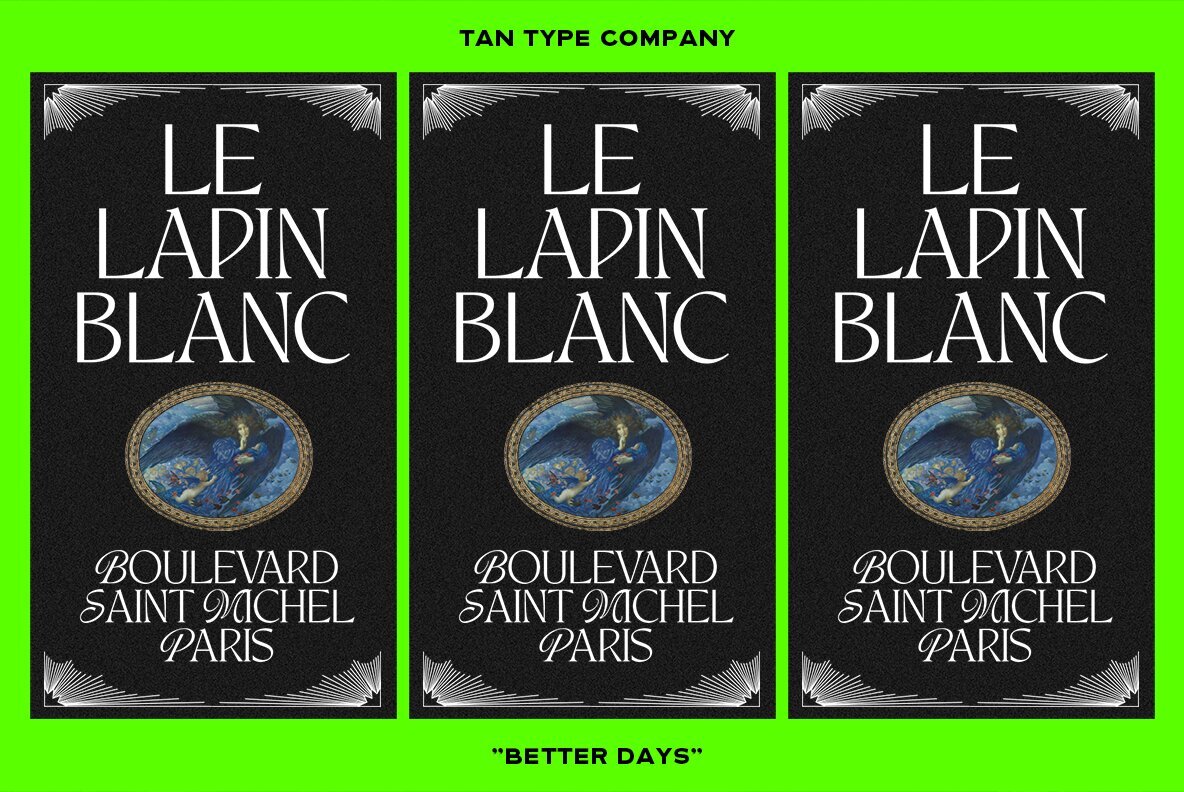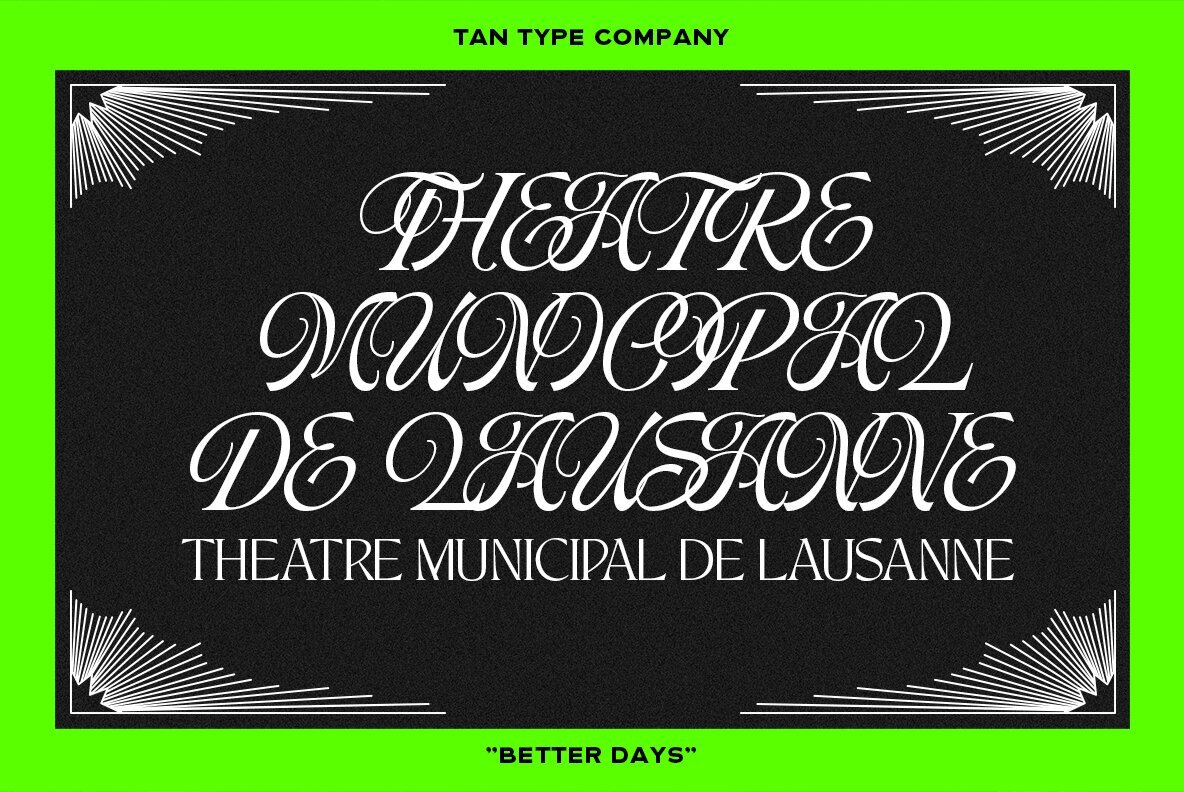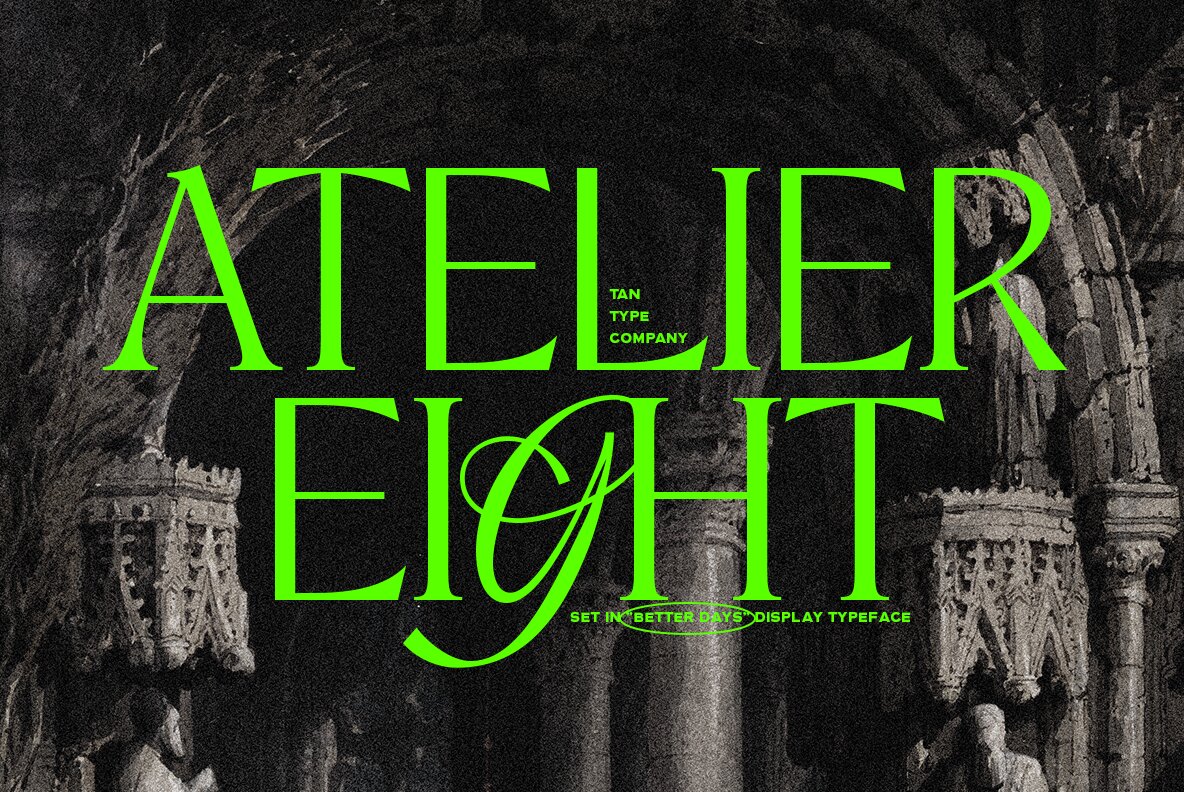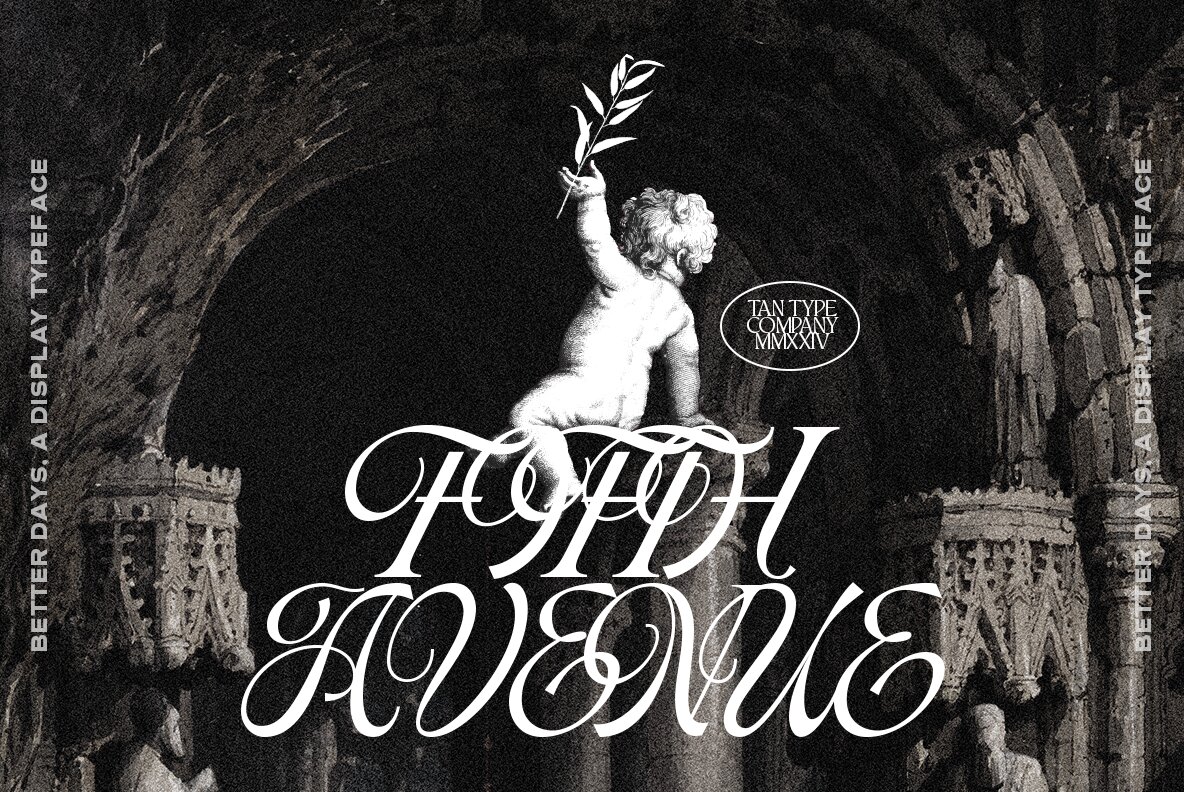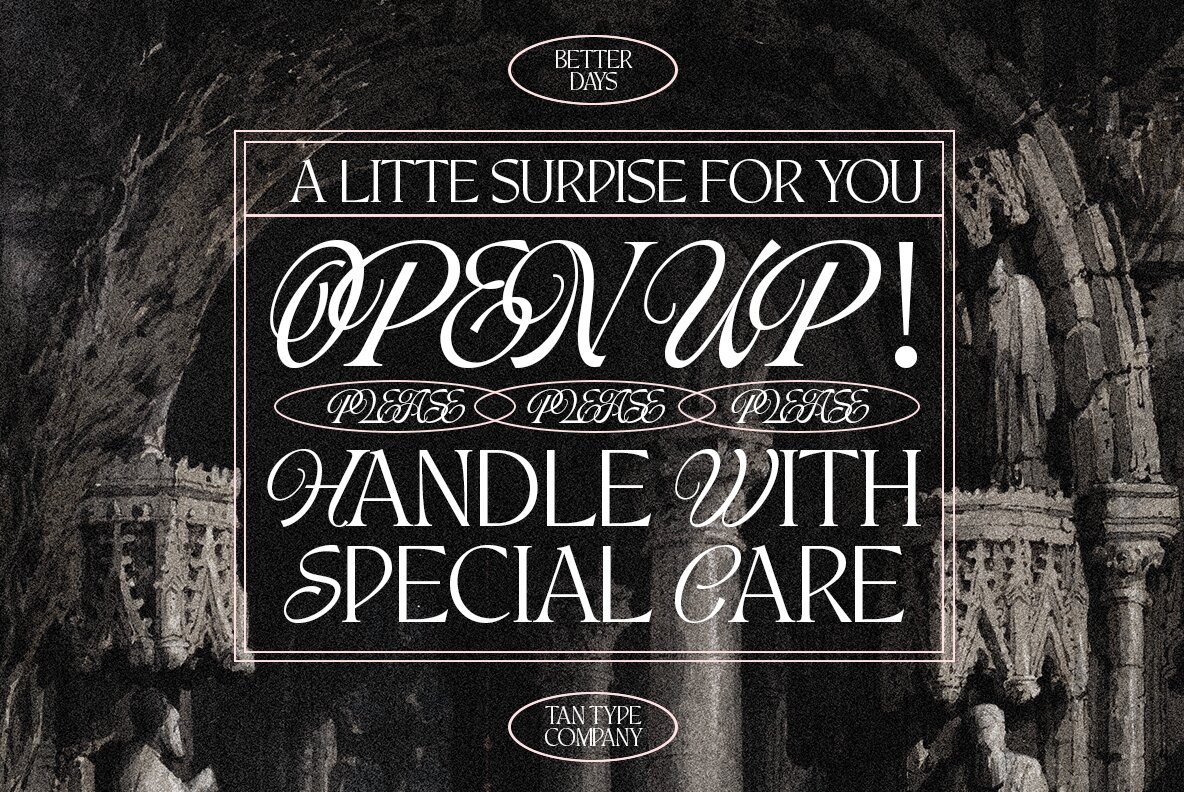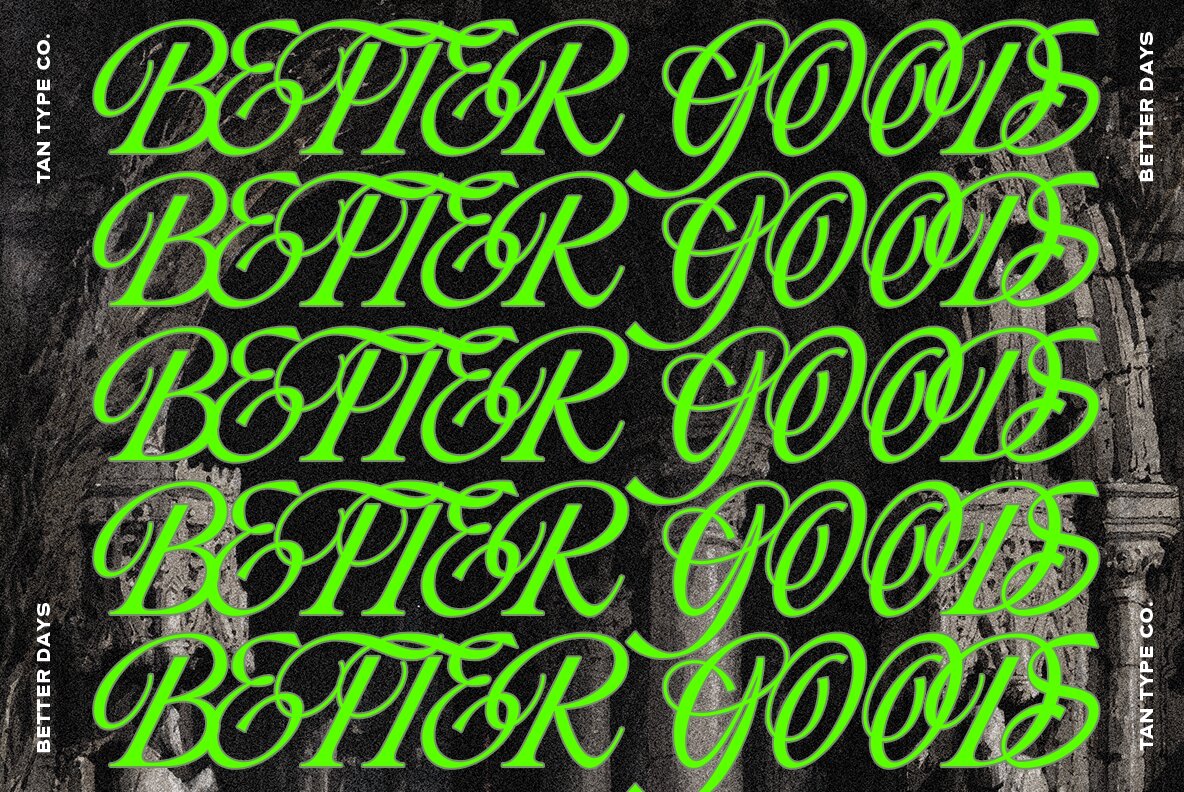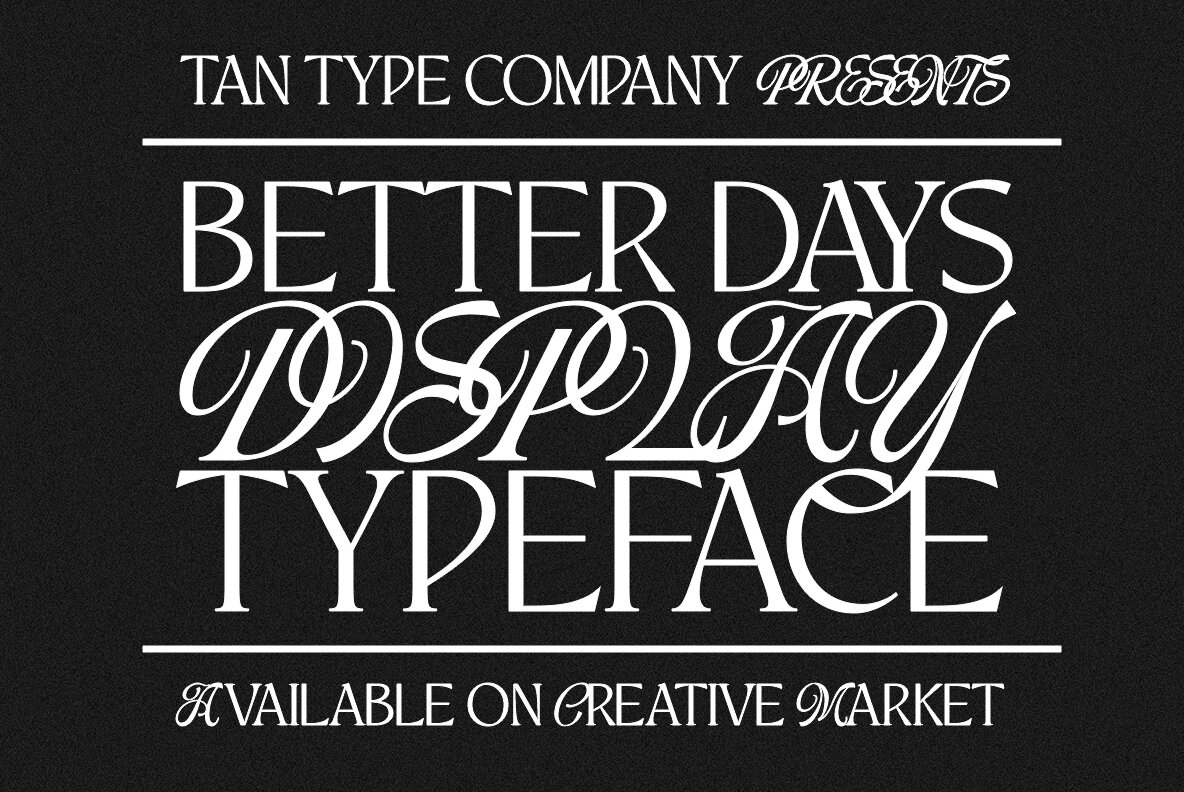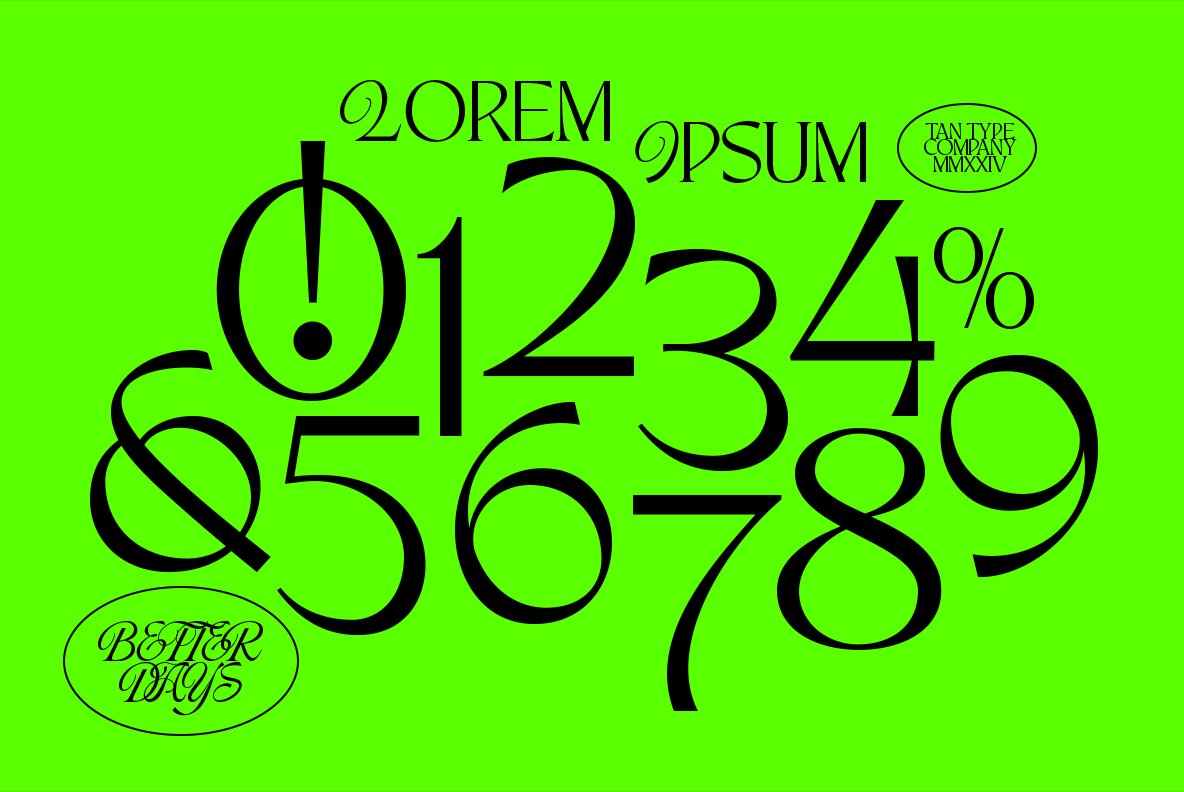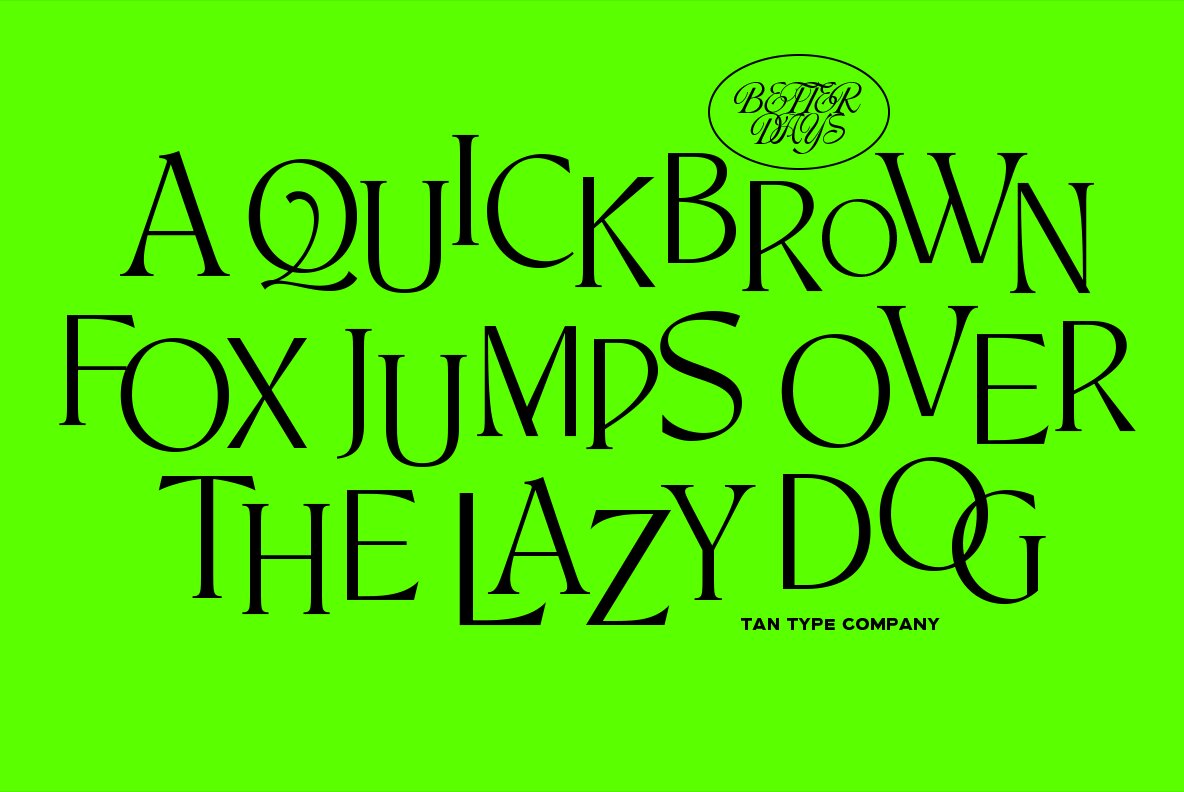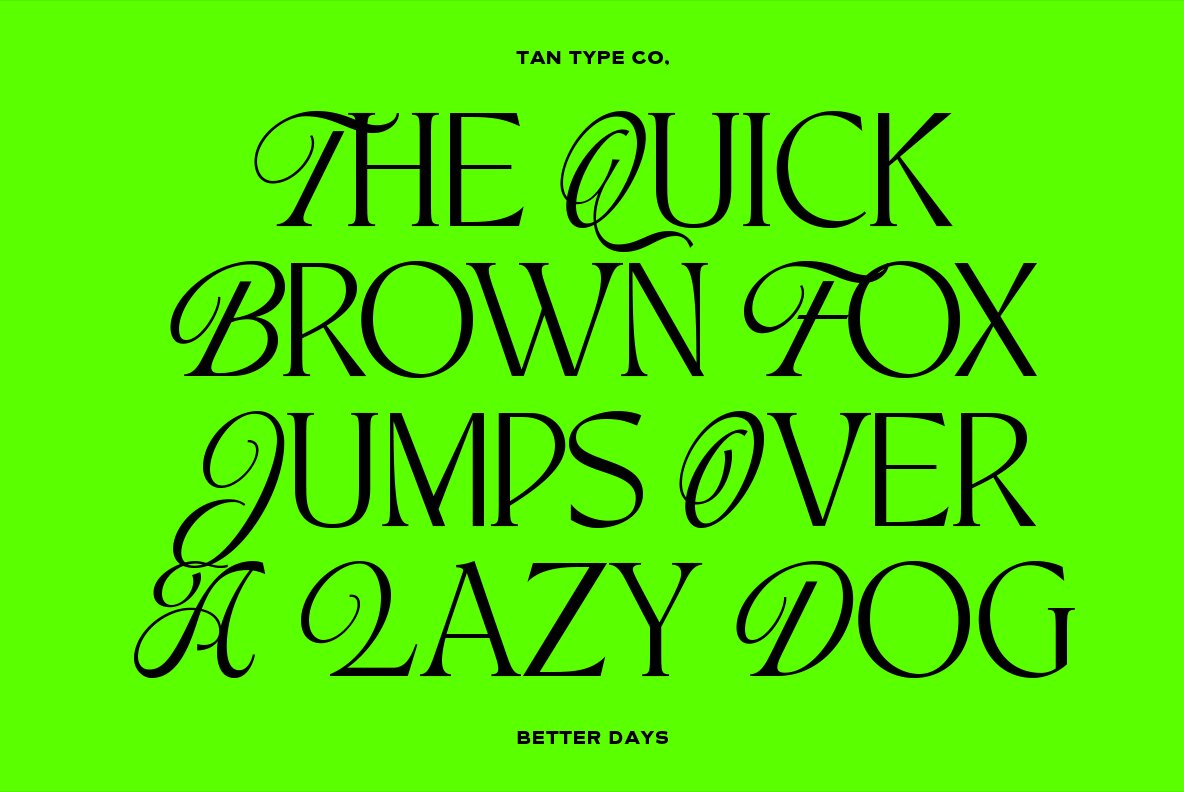
Tan Better Days Font
TAN BETTER DAYS Display
Tan Better Days is script display serif. Intended to be used for fun and when you need something classic and quirky.
TanType Co. is a distinguished font designer specializing in classical and decorative typefaces that exude elegance and sophistication. Renowned for their meticulous craftsmanship, each type design by TanType Co. is packed with over 300 glyphs and features advanced OpenType functionalities, ensuring versatilit...